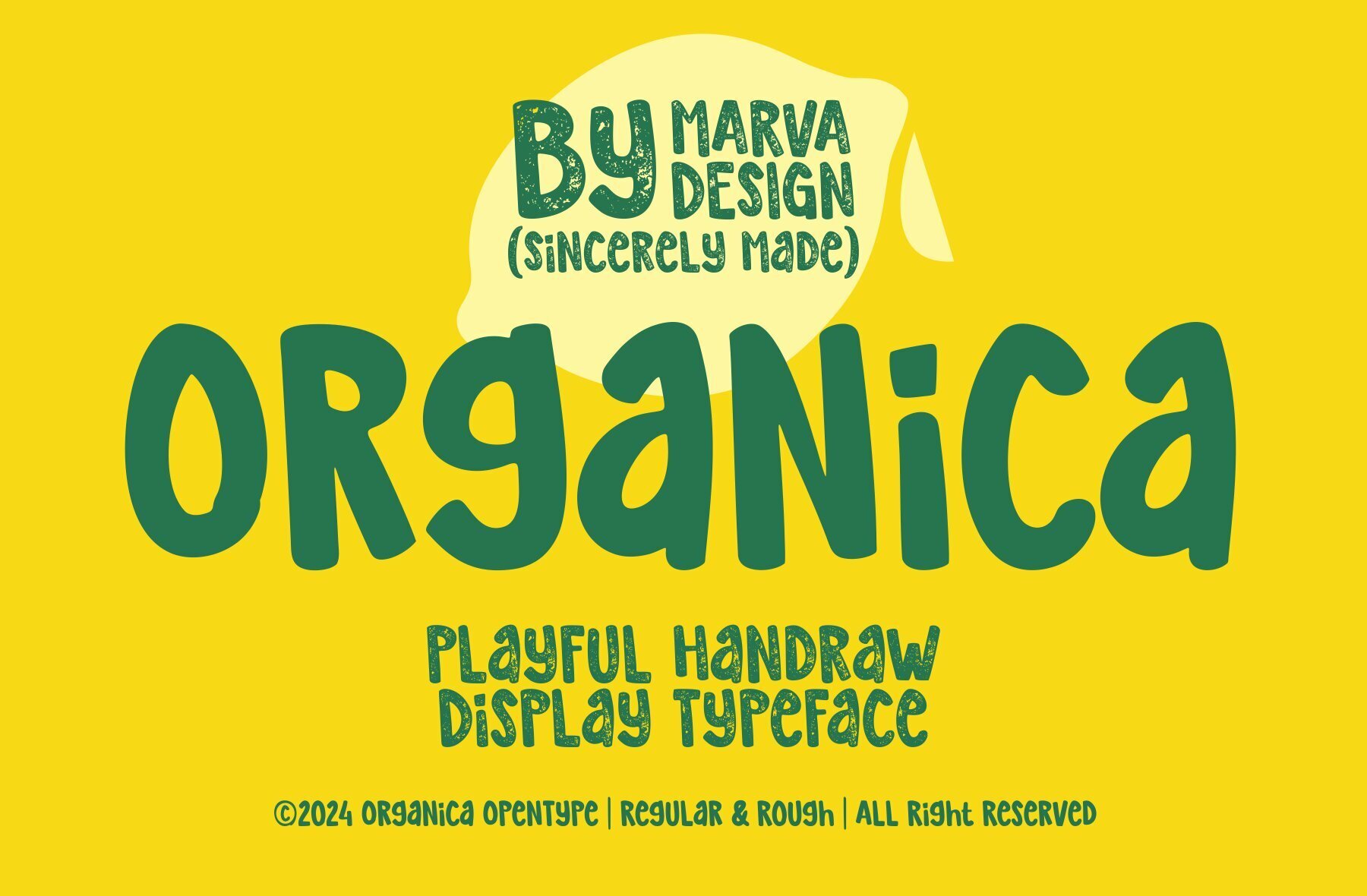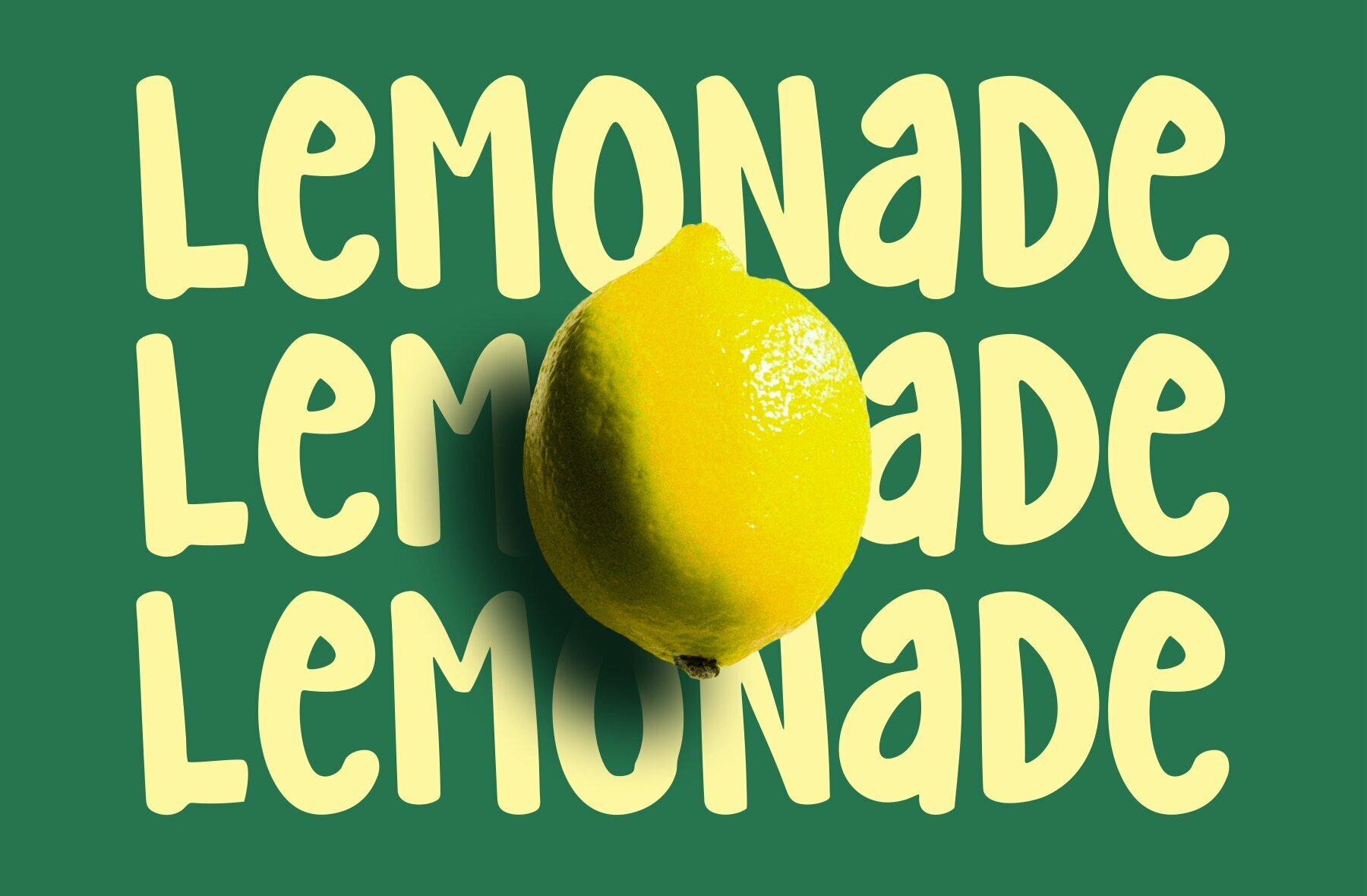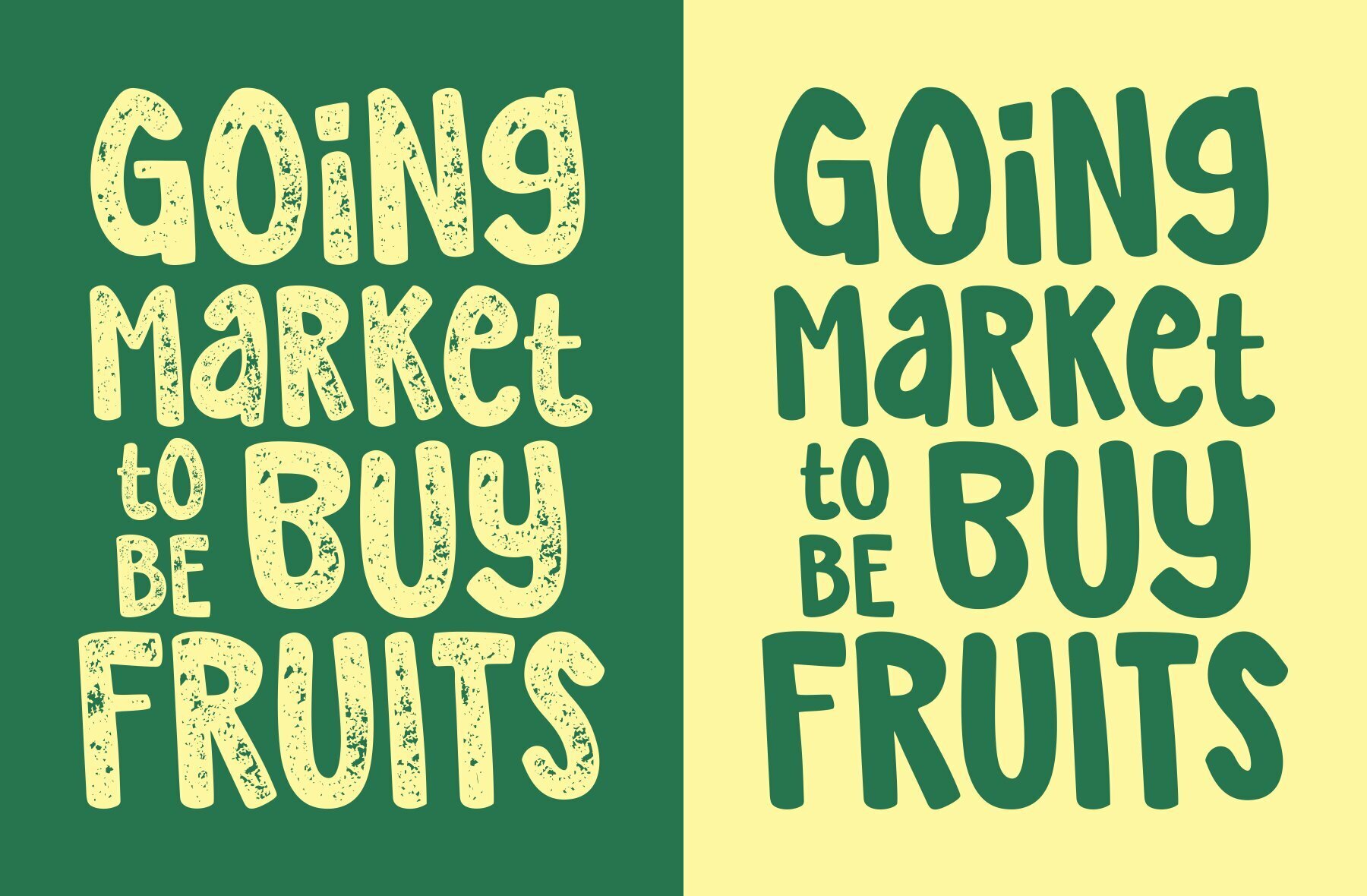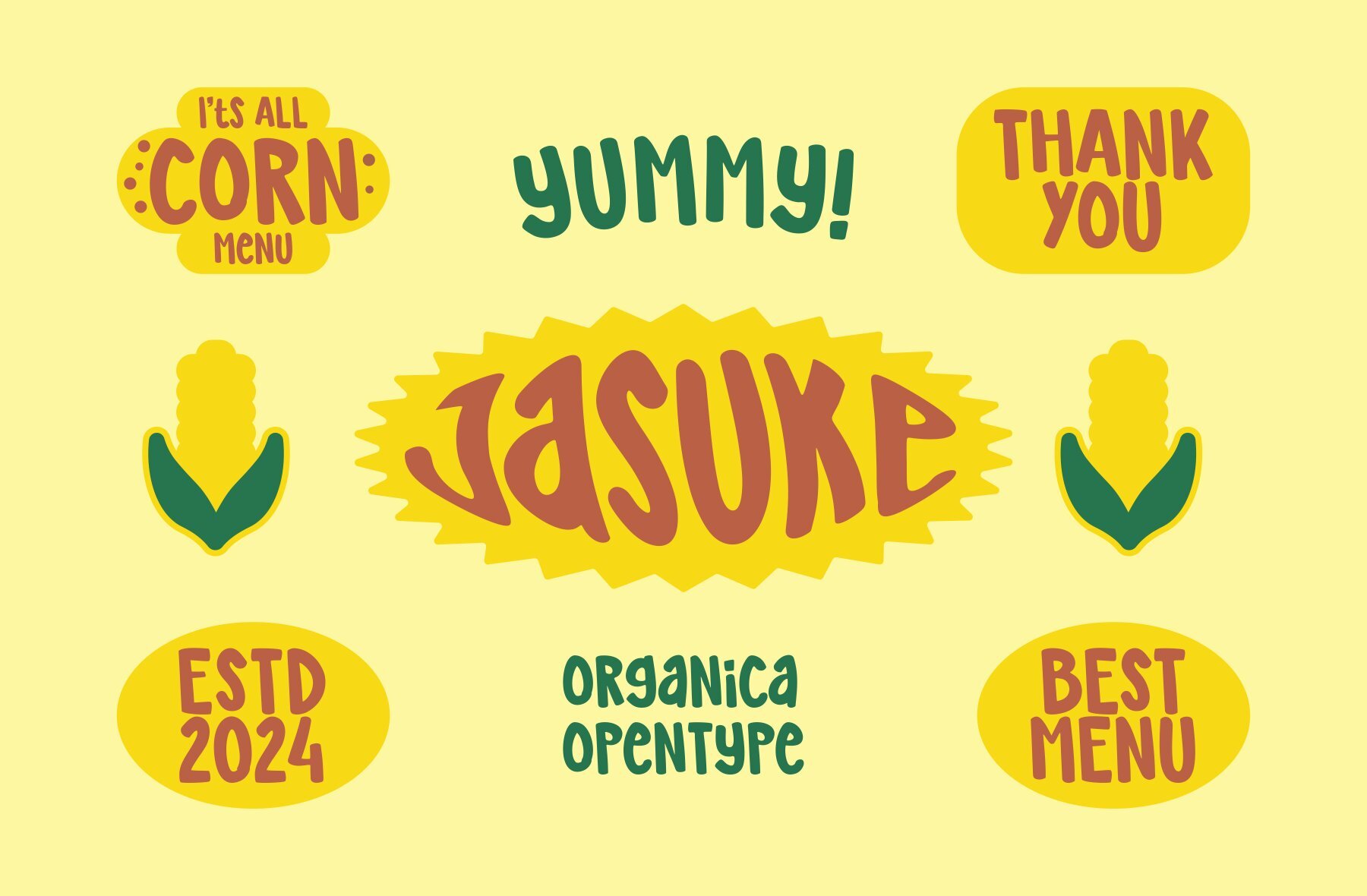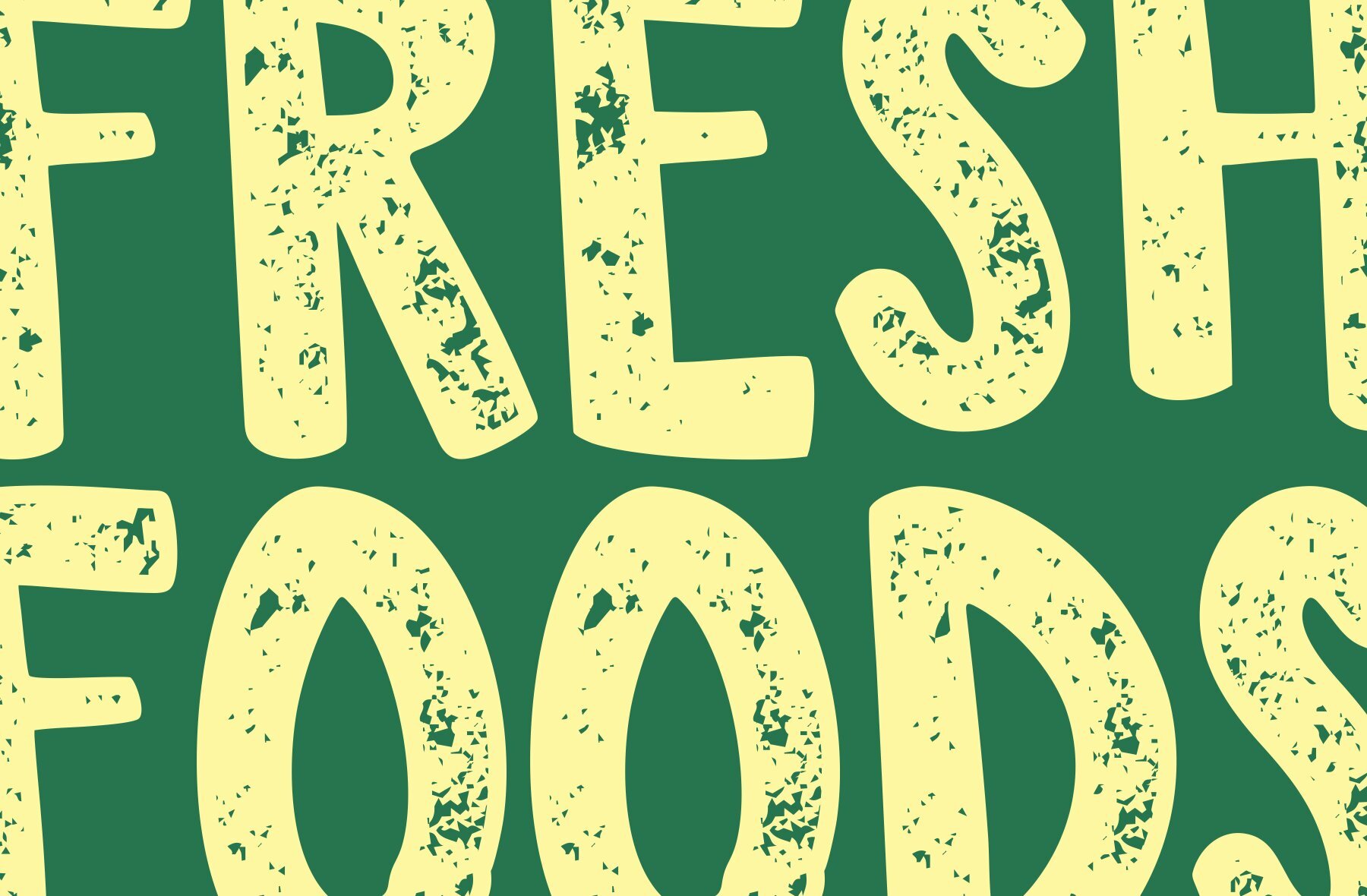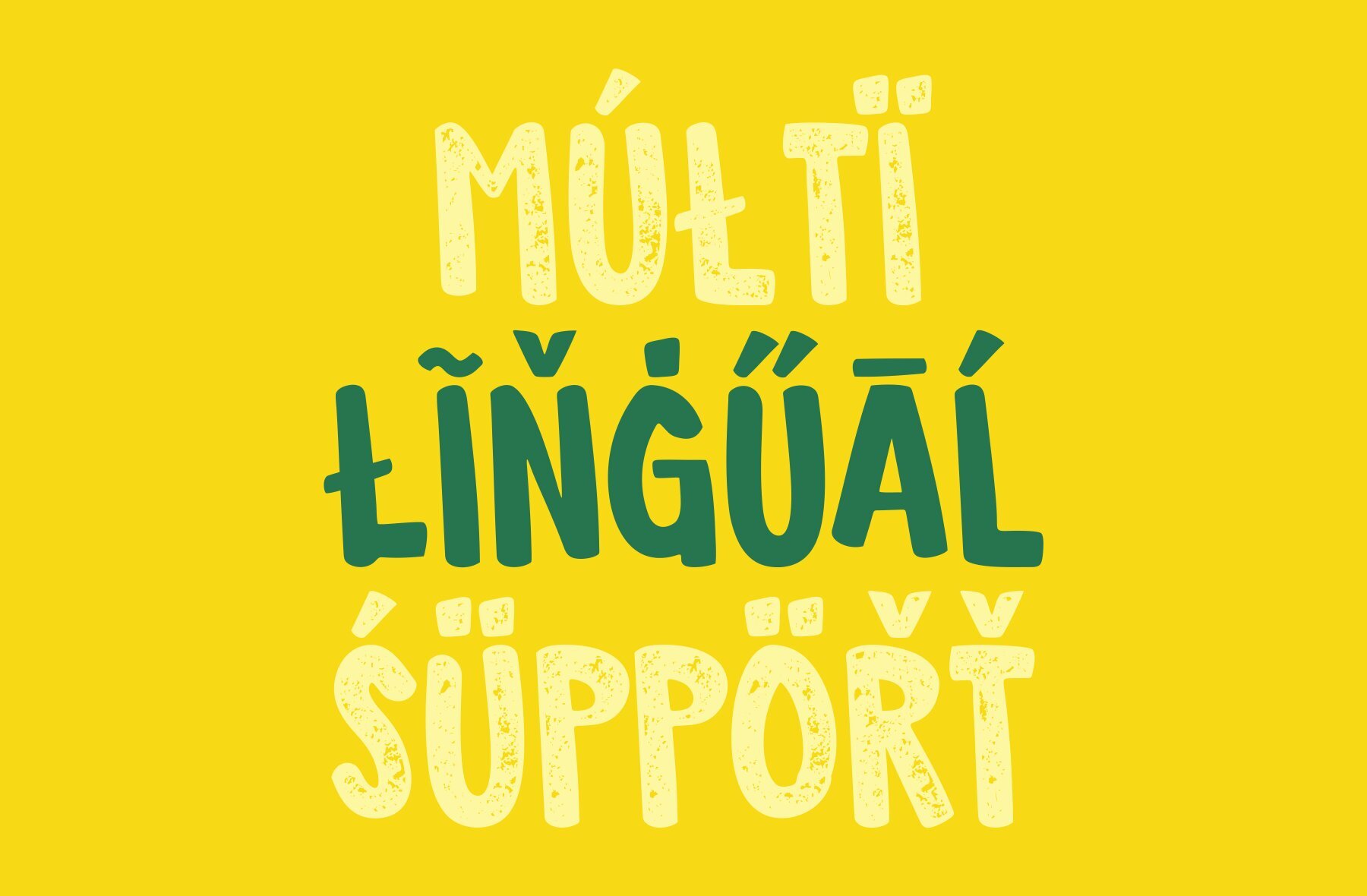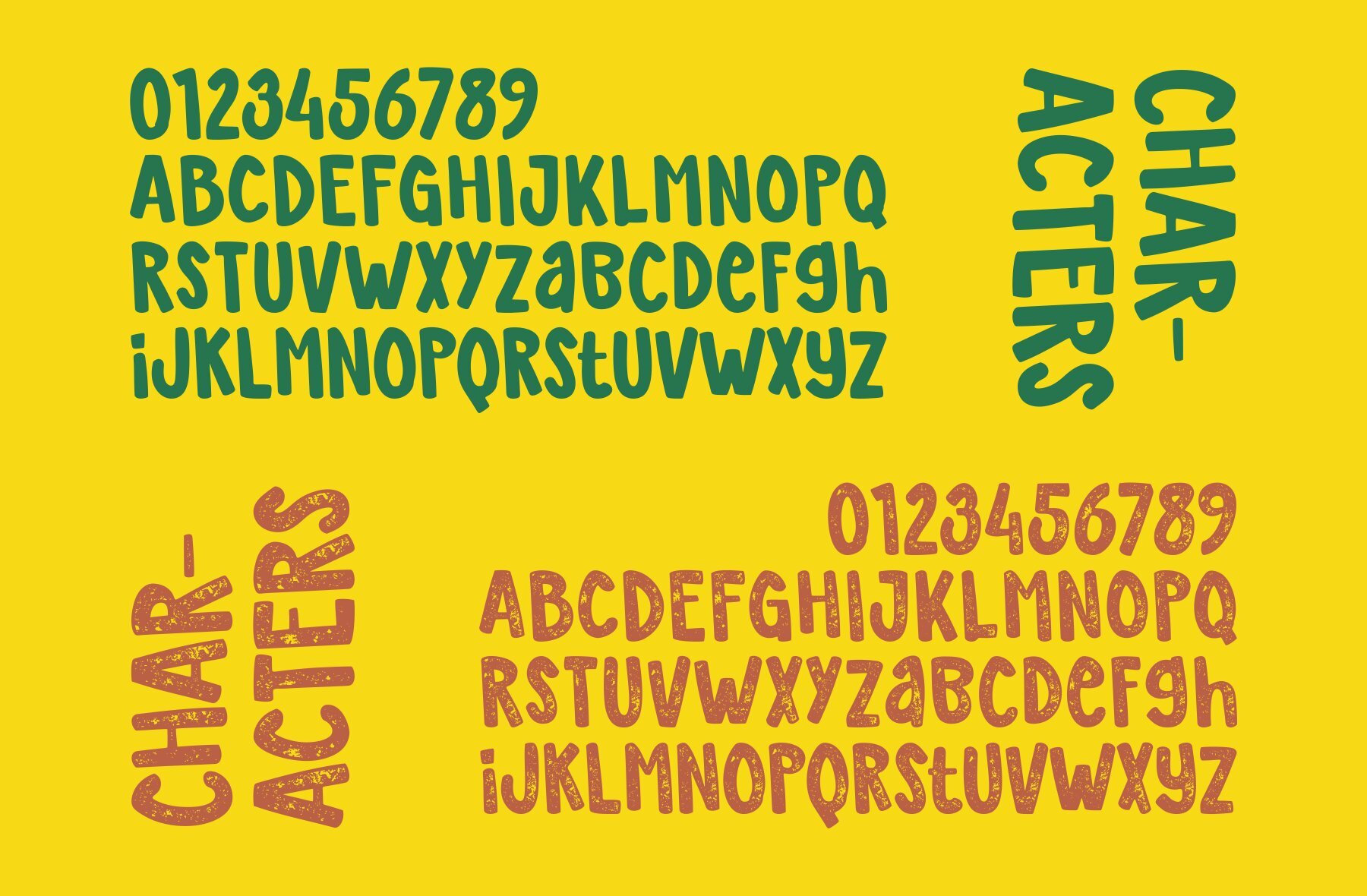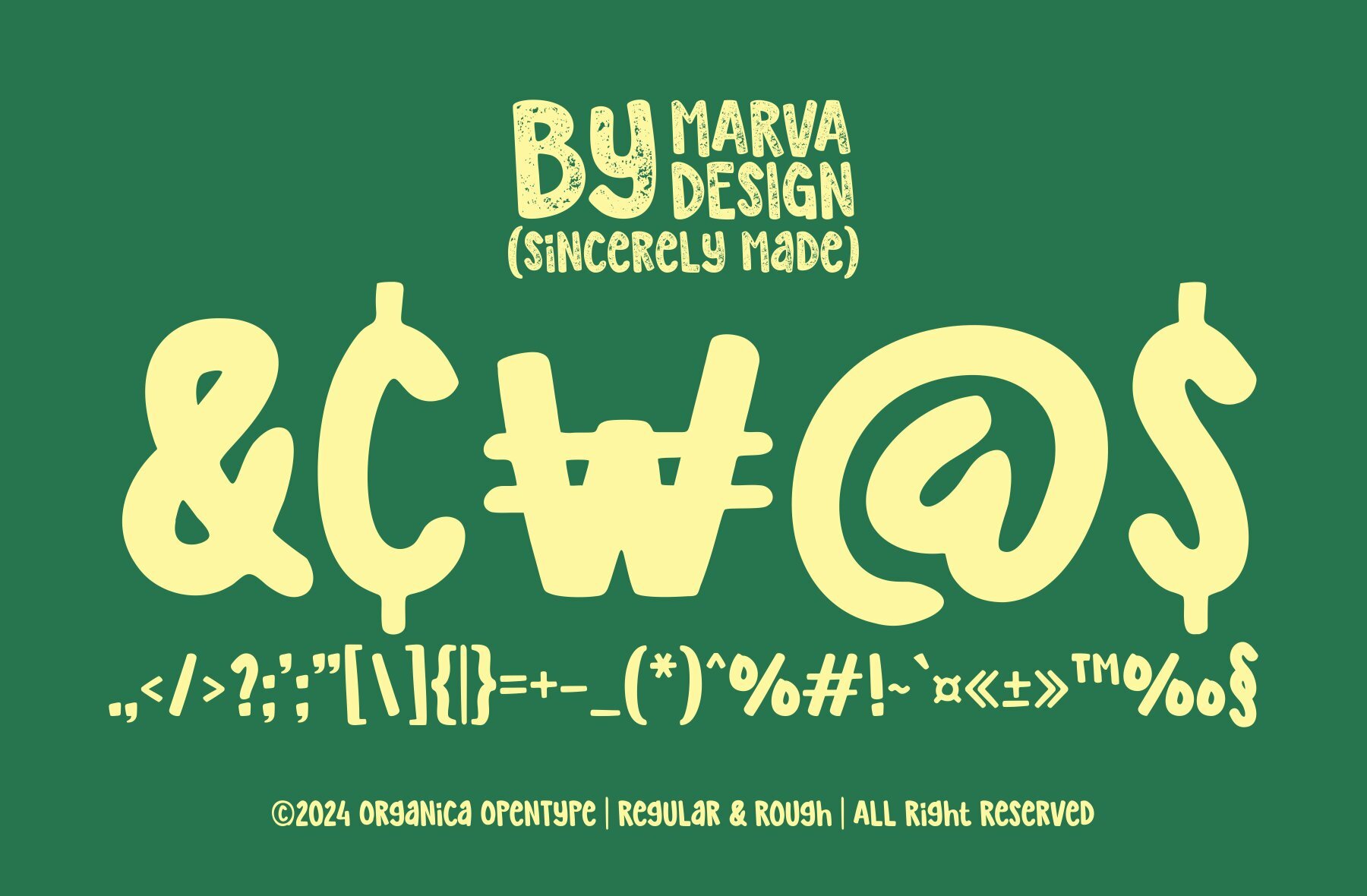
Organica is a playful hand-drawn font known for its unique character. Ideal for informal and creative themes, this font brings a lively touch to any design project. With two variants—regular and rough—Organica offers flexibility and expression, making it suitable for a wide range of design aesthetics.
The regular variant provides a clean, smooth look, perfect for projects needing a softer, more polished feel. In contrast, the rough variant adds a textured, rugged appearance, ideal for creating a more dynamic and bold impression. Whether you’re designing logos, posters, or social media graphics, Organica’s versatility ensures it will enhance your creative work.